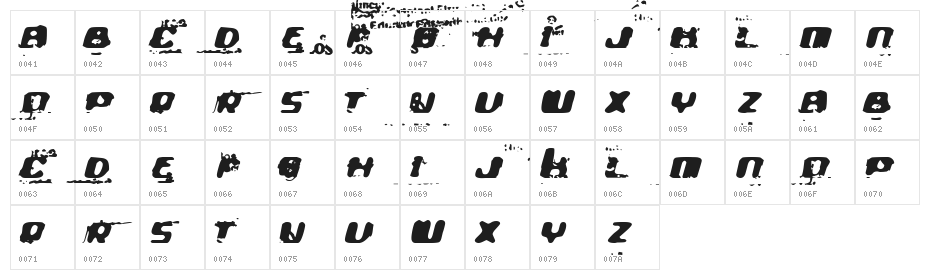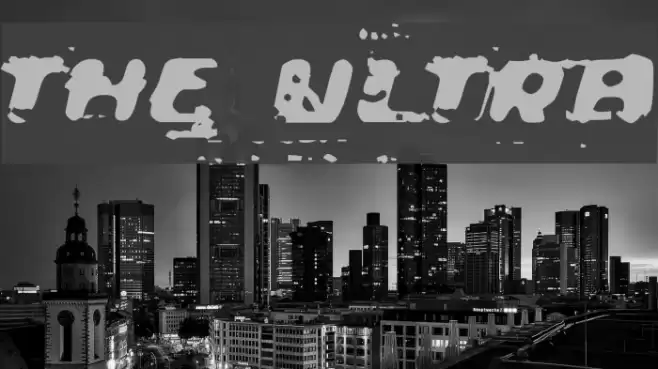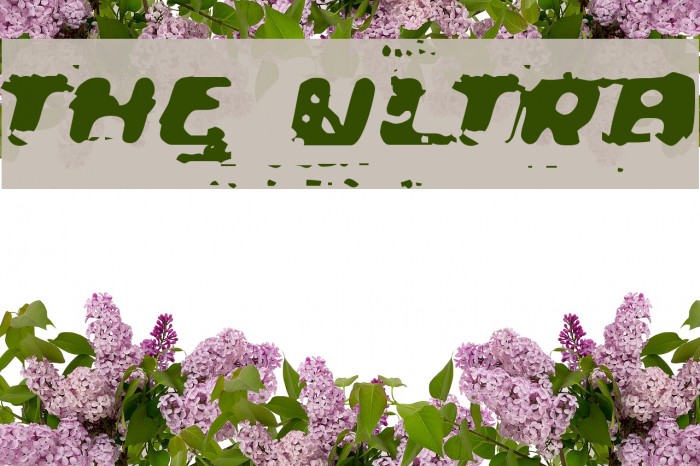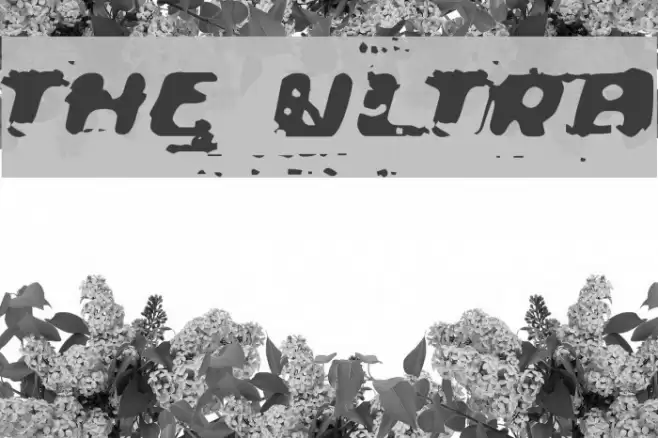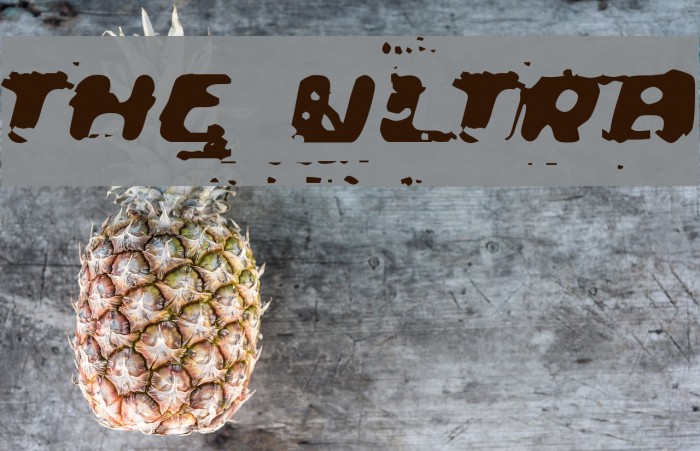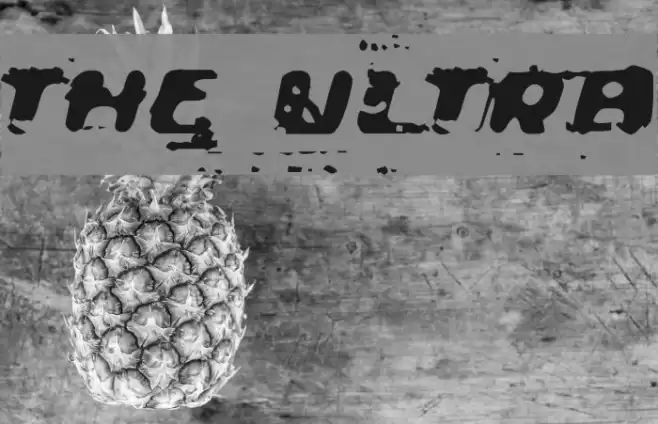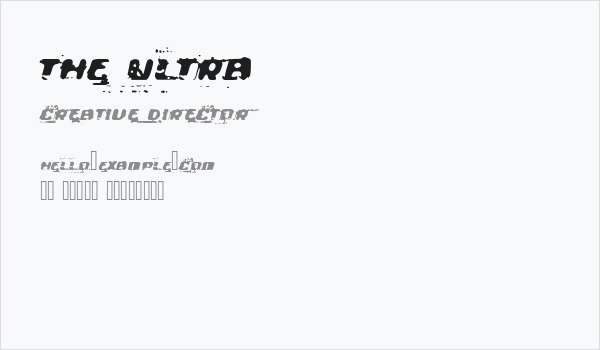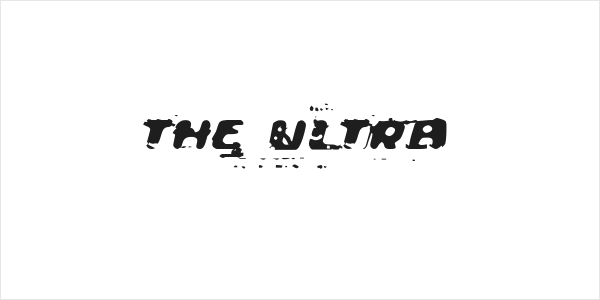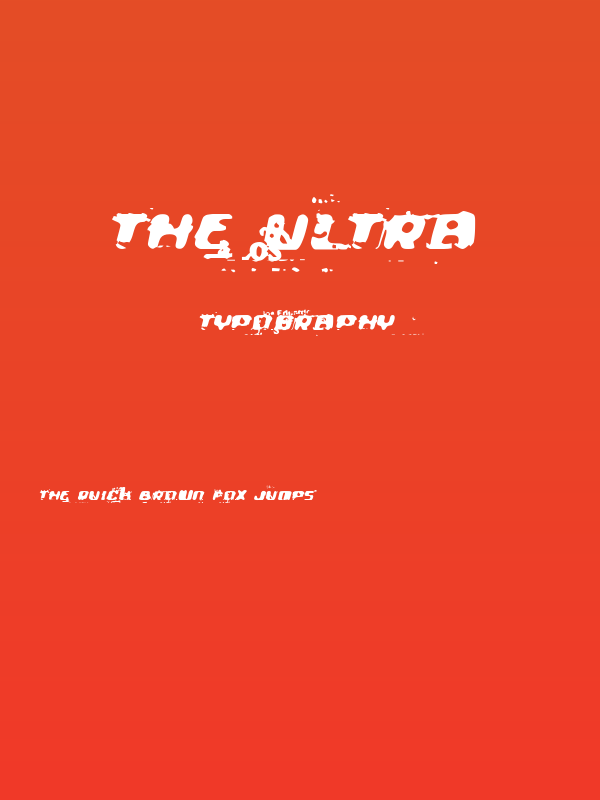
The Ultra Font
The Ultra Description
This font presents a bold and dynamic style with a distressed, grunge effect that gives it a unique, edgy appearance. The characters are thick and slightly slanted, contributing to a sense of movement and energy. The uppercase and lowercase letters maintain a consistent style, with rounded edges and a bold presence. The numbers and special characters follow the same design principles, ensuring uniformity across the font. The distressed texture adds a layer of complexity, making it suitable for projects that require a raw, urban feel.
| Overall Style | Grunge, Urban |
| Proposed Projects | Ideal for music album covers, streetwear branding, posters, and urban-themed designs. |